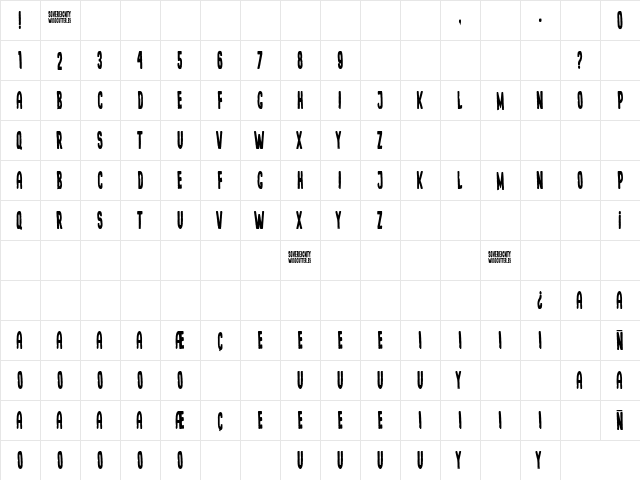
Sovereignty Regular
| Designer | Jordi Manero Pascual |
Design Context for Sovereignty Typeface
Sovereignty offers clean, dependable letterforms without strong stylistic allegiance, making it a practical choice for designers who need flexibility.